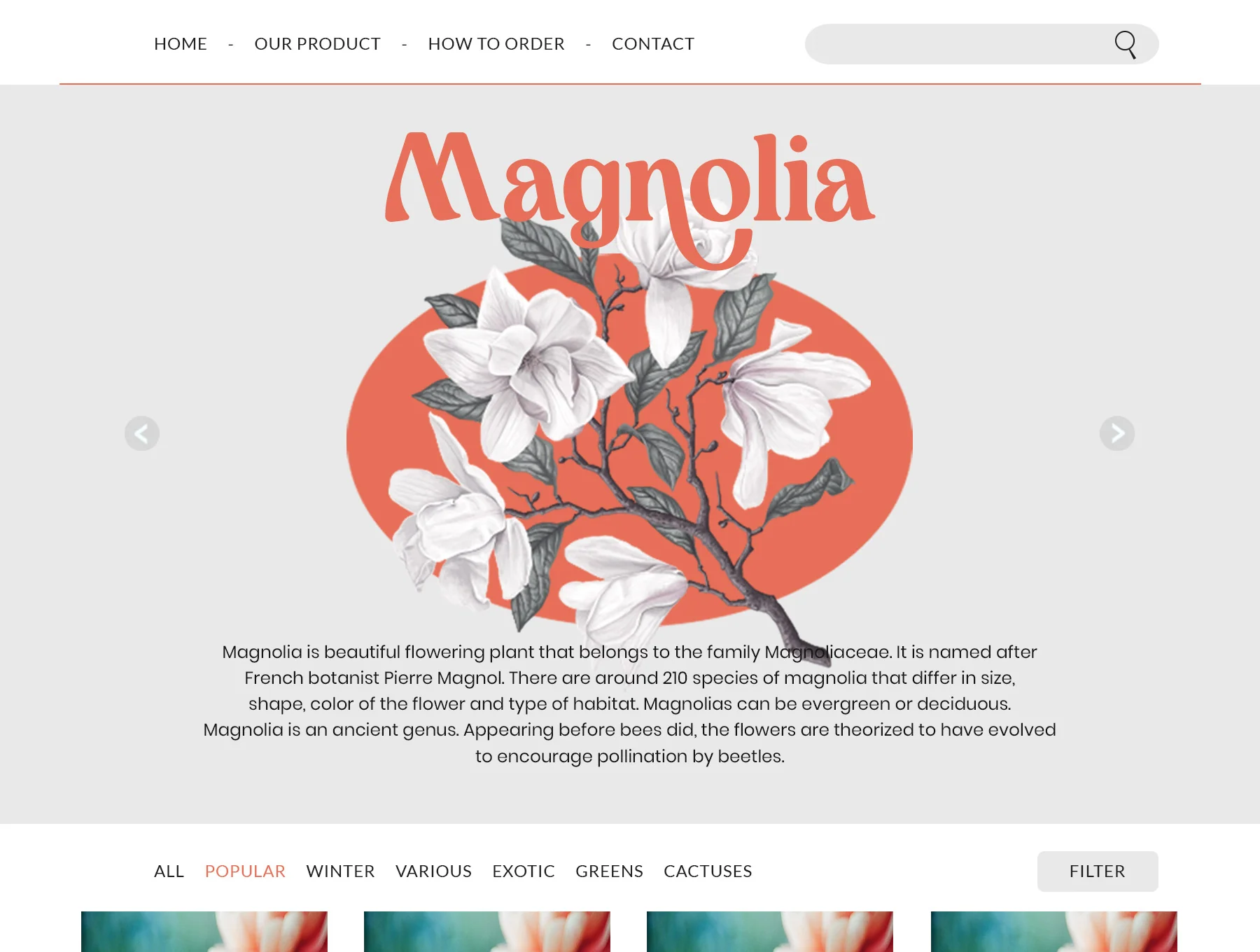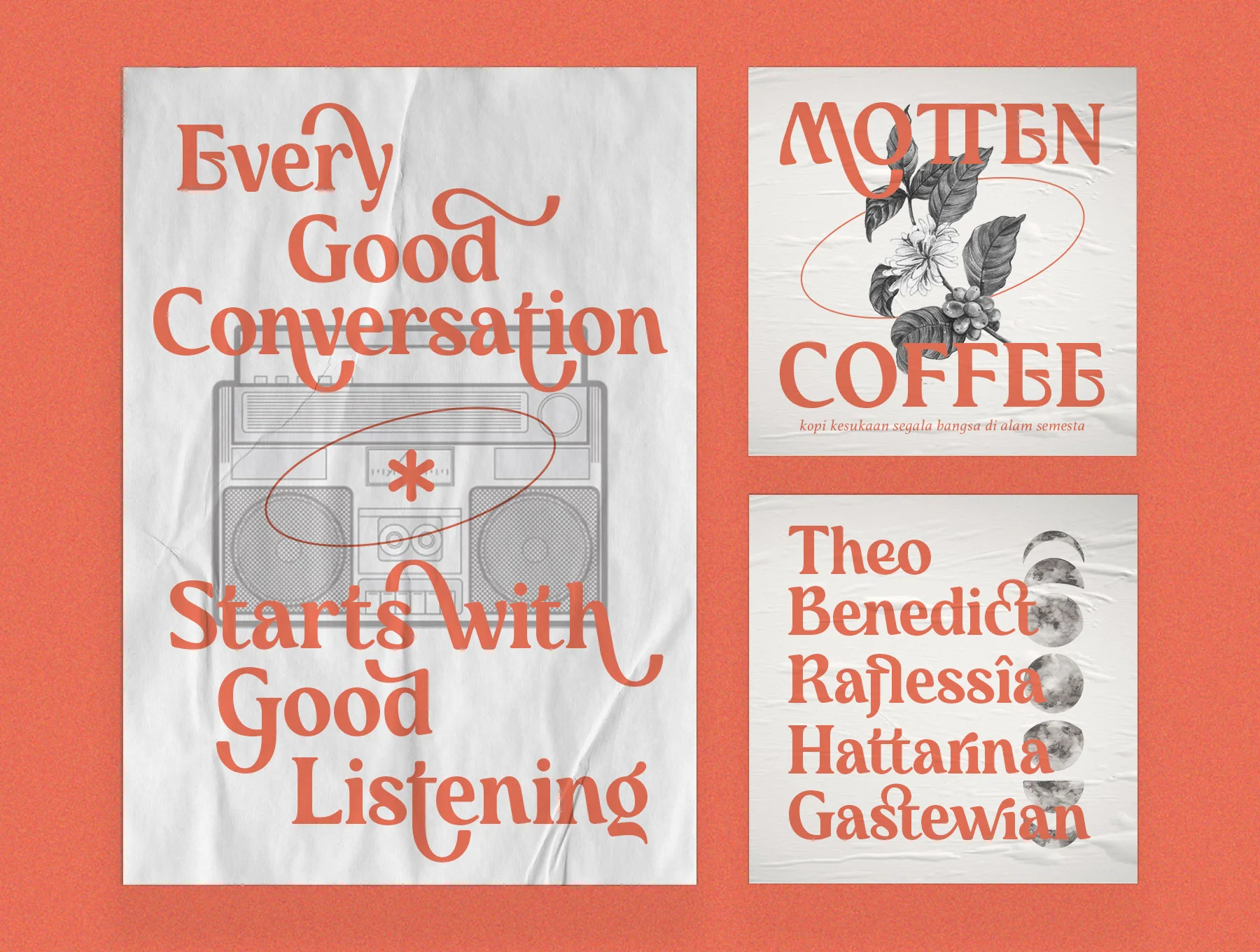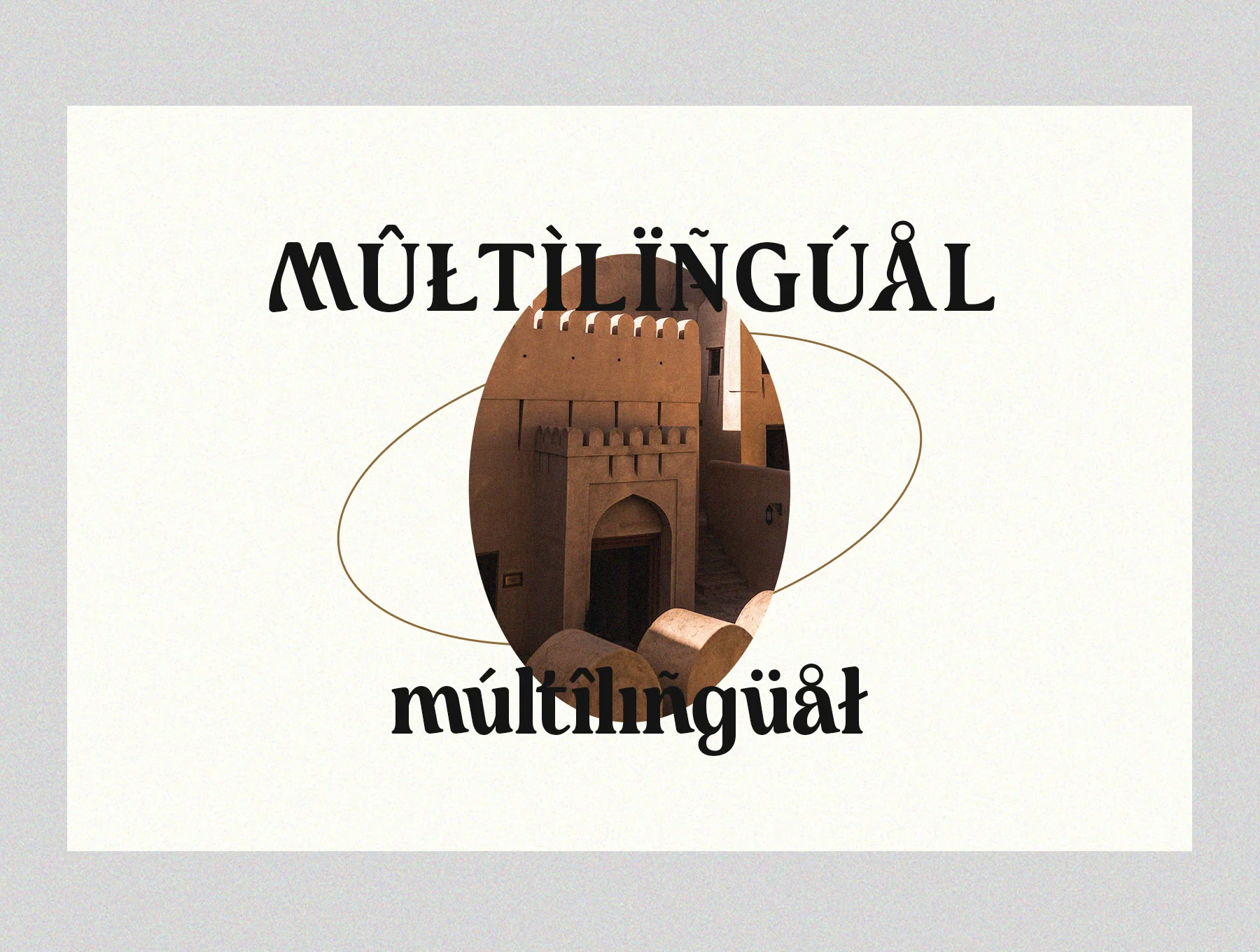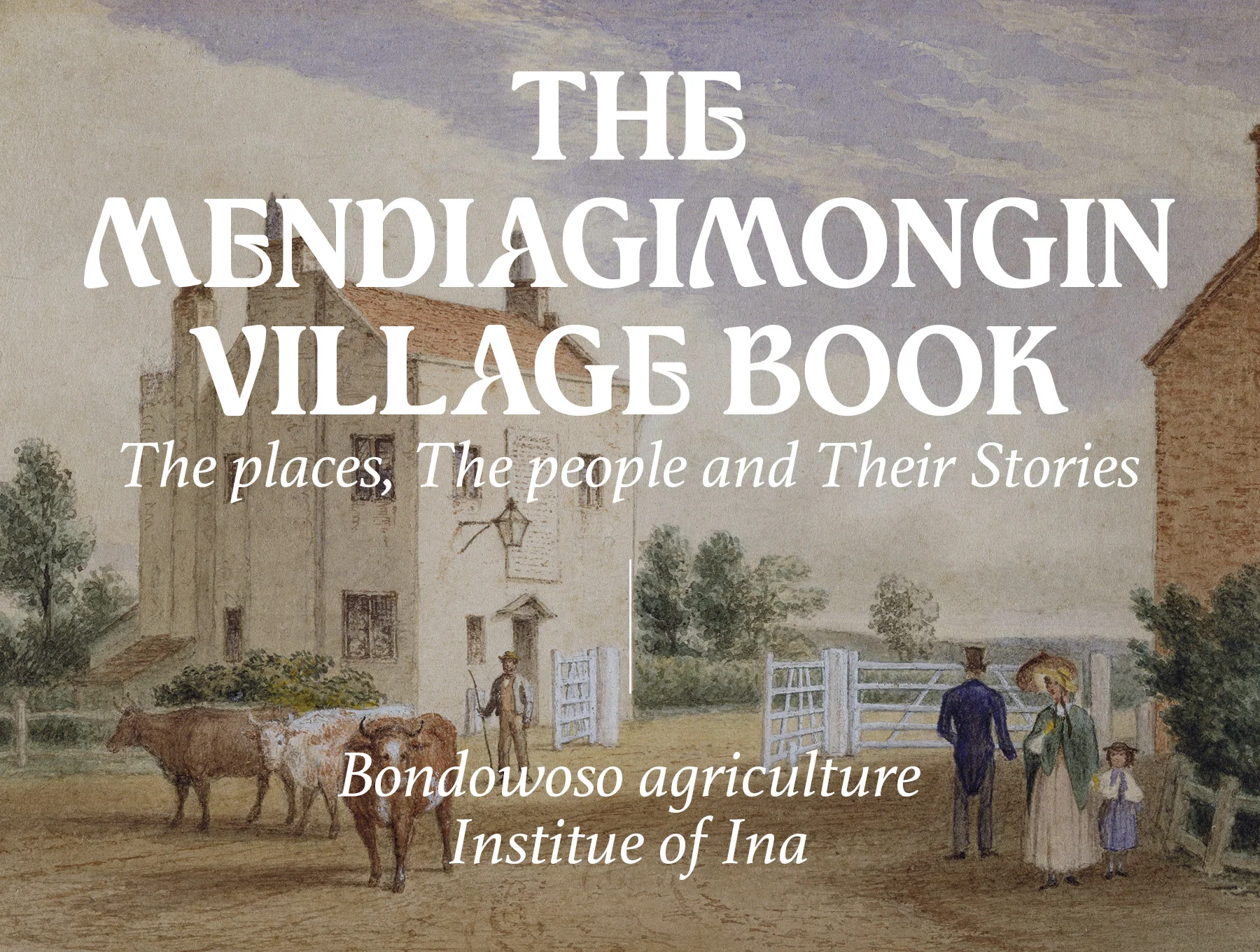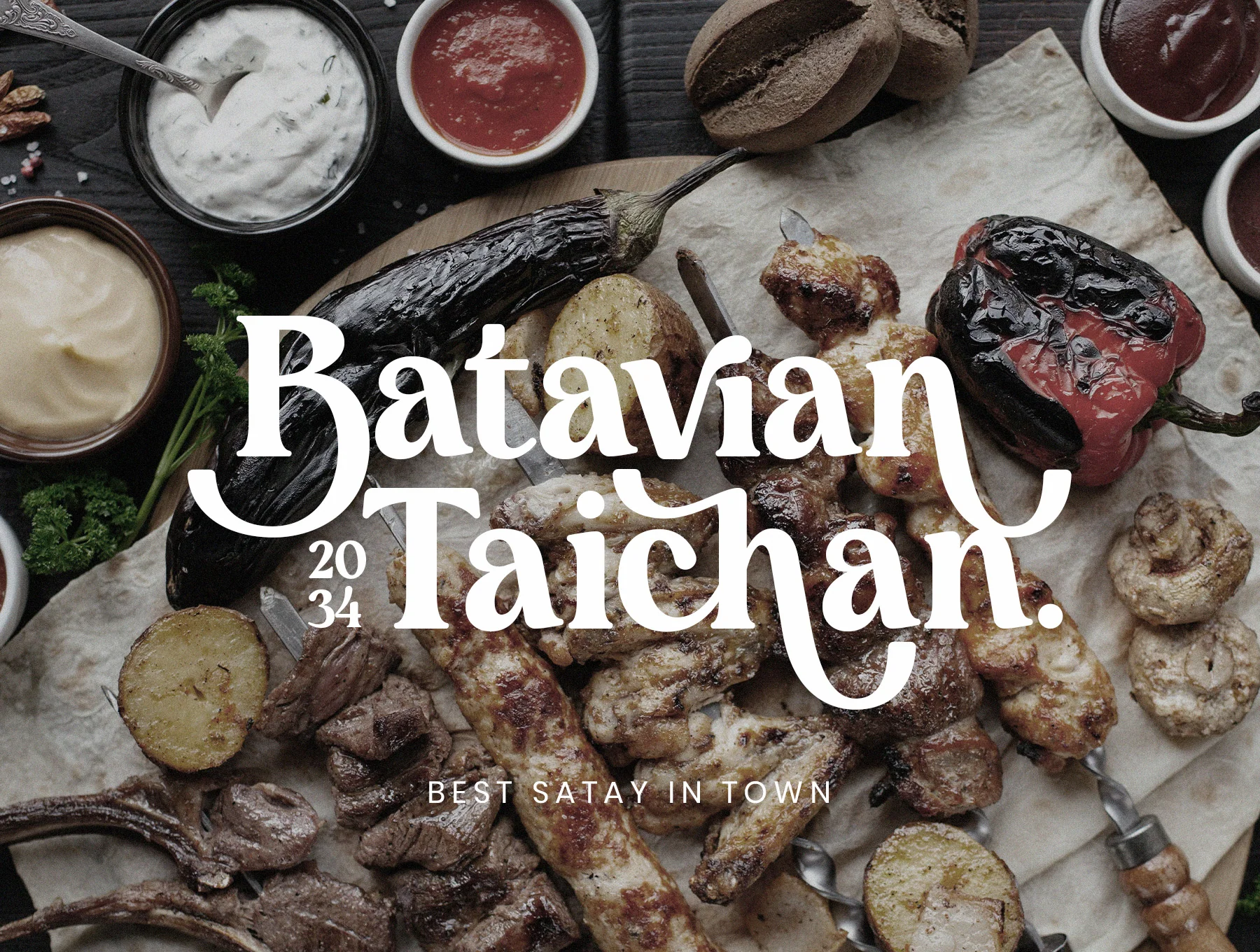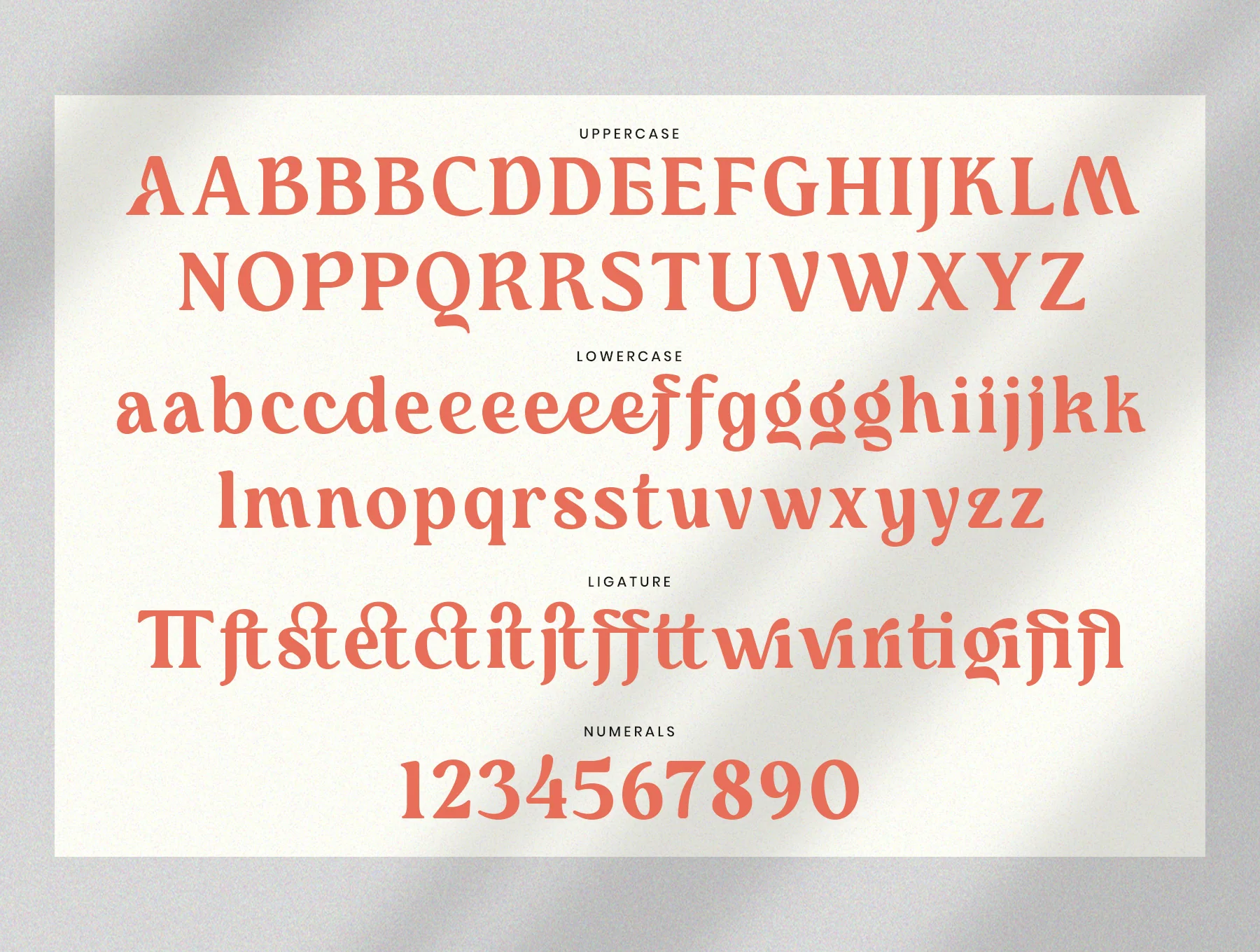
Mufteya - Retro Serif Font
Serif font with a stylish vintage flair.
Caps, small letters, numbers, and marks
Many style variants and character sets
Connected glyph combinations
Mufteya is a refined serif typeface made for enduring brand identities. Blending modern elegance with a gentle vintage feel, it suits logos, editorial layouts, classic posters, magazine titles, and distinctive typography. Includes Mufteya Regular and Slant. Alternate glyphs are available via Glyphs in Photoshop or Illustrator.